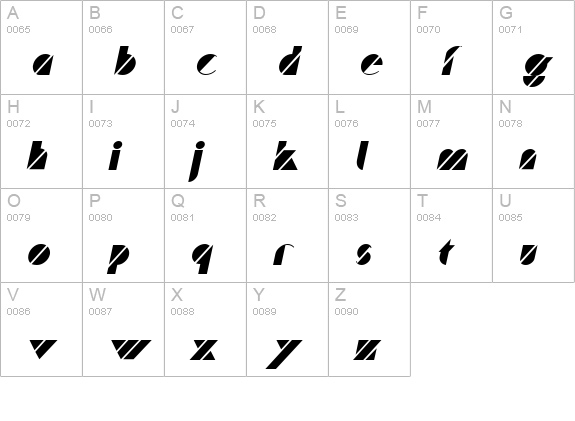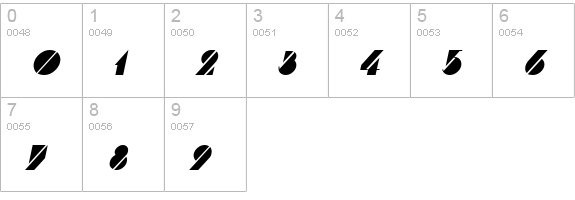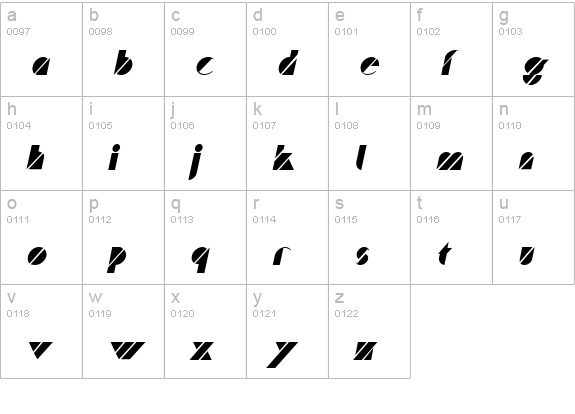
Truffle Italic is a distinctive, italic variant in the Truffle typeface family \xE2\x80\x94 well suited to design and typography projects.
Truffle Italic font is a stunning typeface that exudes elegance and sophistication. It is the perfect choice for projects that require a touch of finesse and a hint of modernity. The delicate curves and slanted design of this font add a sense of dynamics and movement, making it ideal for titles, headings, and captions. With its unique blend of classic charm and contemporary flair, Truffle Italic font effortlessly captures attention and creates a lasting impression. Its smooth and flowing strokes lend a sense of grace and fluidity to any design, making it a versatile option for a wide range of creative projects. One of the standout features of Truffle Italic font is that it is available for free download at FontsMarket.com. This means that you can easily access and utilize this beautiful typeface without any cost or restrictions. Whether you are a professional designer or a casual enthusiast, having access to high-quality fonts like Truffle Italic font can greatly enhance the visual impact of your creations. So why wait? Elevate your designs to new heights with Truffle Italic font. Its exquisite details and captivating style will undoubtedly make a lasting impression on your audience. Download it for free today at FontsMarket.com and unlock a world of design possibilities.